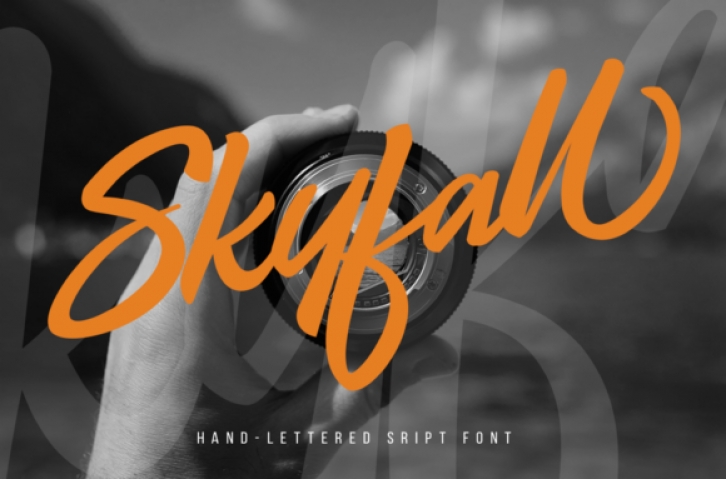
Skyfall is a stunning script font. It is perfect for creating elegant branding and headlines for handmade, food & beverage and artisan goods. Create quotes, invites, t-shirts, Logos, or use it to tale your Instagram feed to another level!